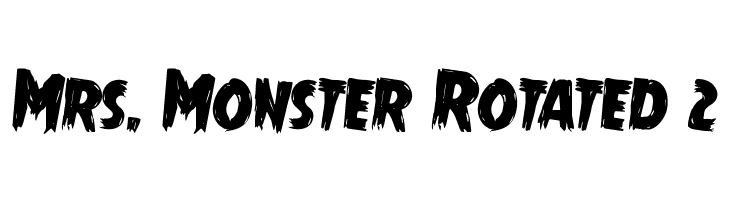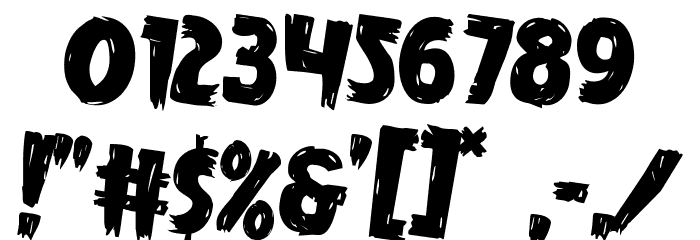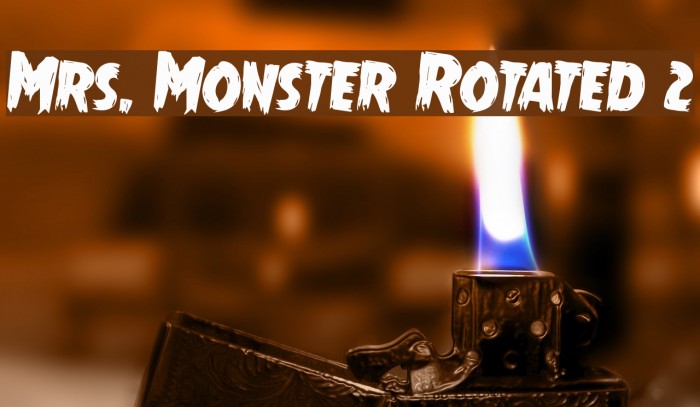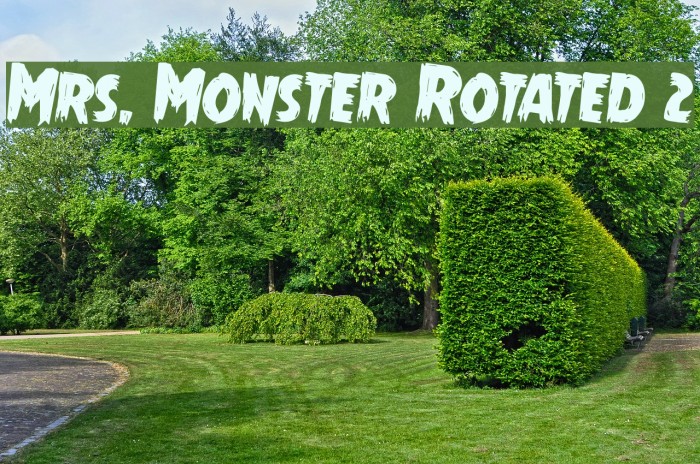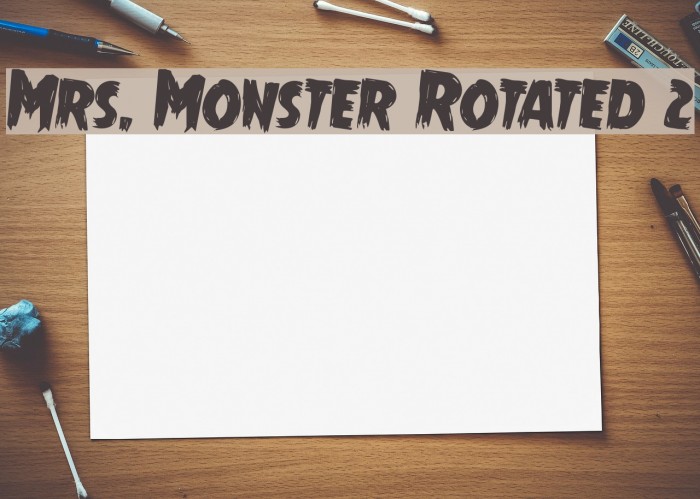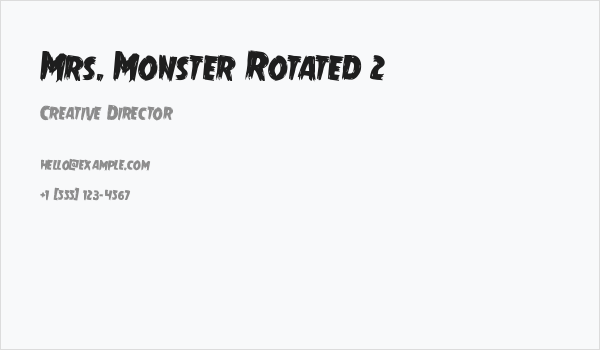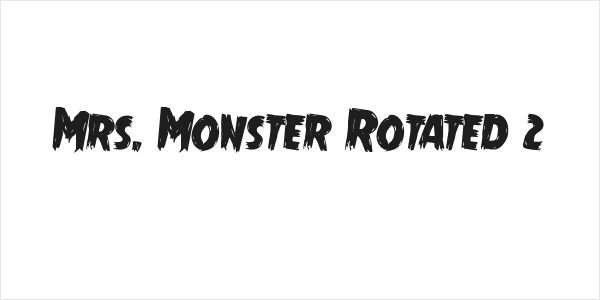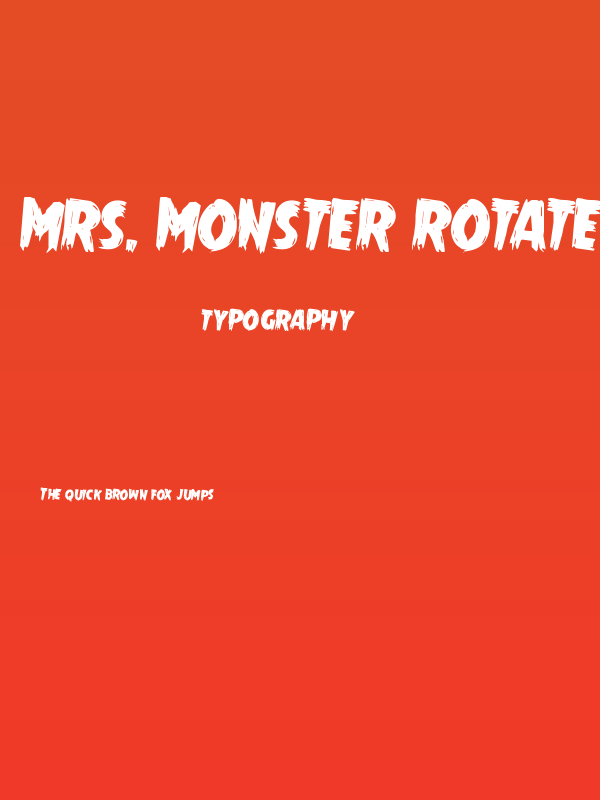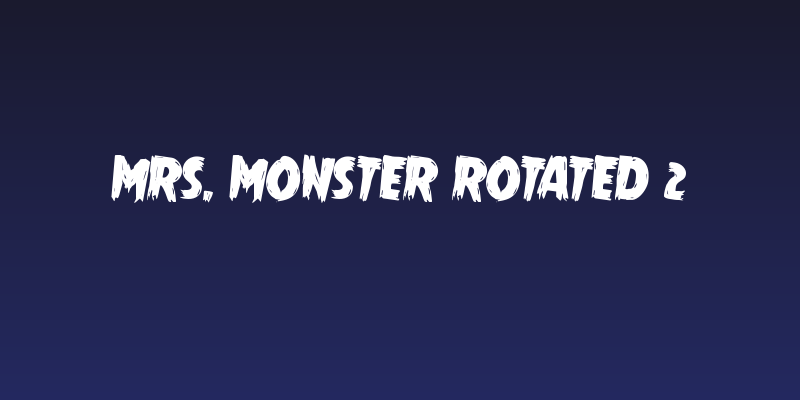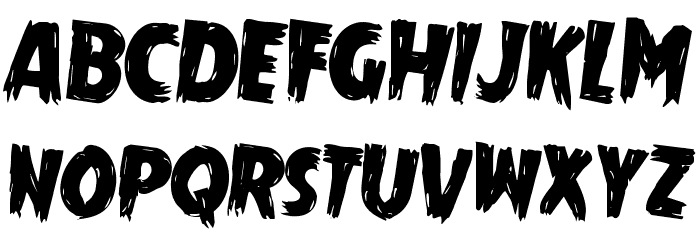
Mrs. Monster Rotated 2 Font
Mrs. Monster Rotated 2 Description
This font features a bold and dynamic style with a rough, textured appearance that gives it a hand-painted look. The characters are slightly slanted, adding a sense of movement and energy. The strokes are thick and uneven, creating a dramatic and eye-catching effect. This font is perfect for projects that require a strong visual impact, such as posters, headlines, and branding materials. Its unique style makes it stand out, while the boldness ensures readability even at smaller sizes.
| Proposed Projects | Ideal for posters, headlines, branding, and any project needing a strong visual impact. |